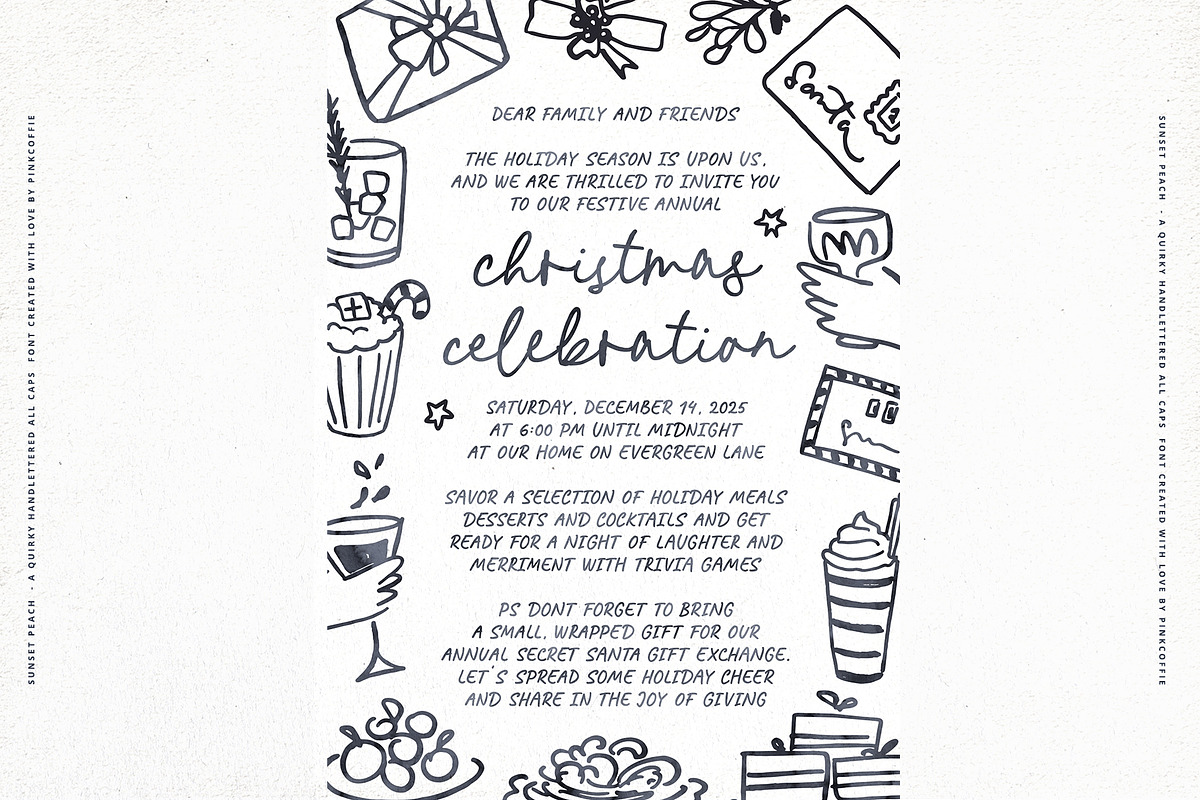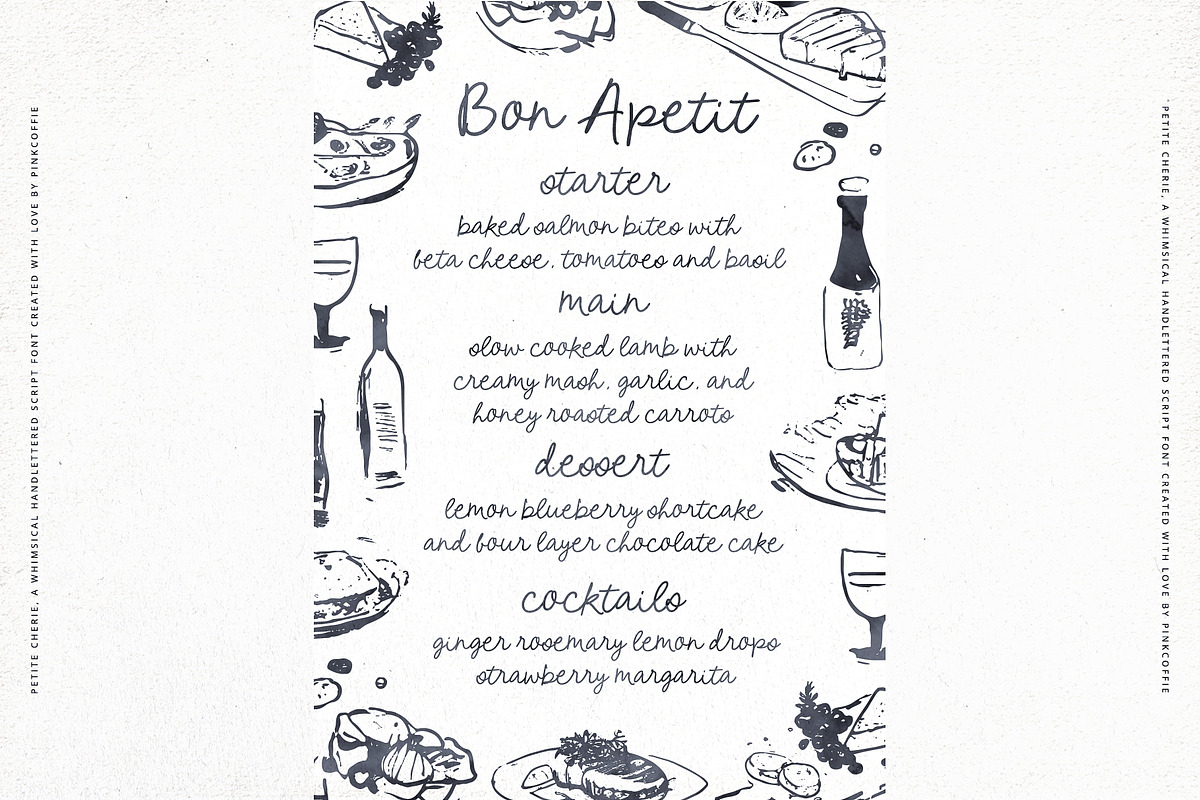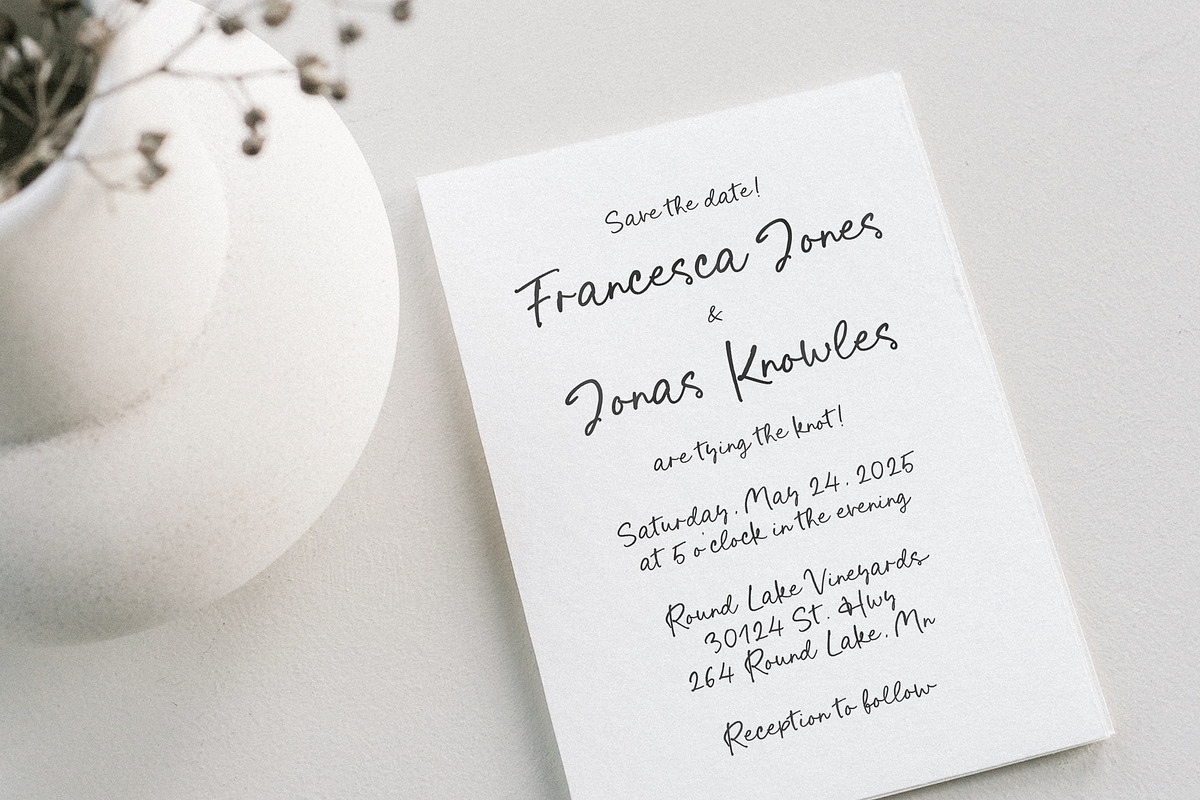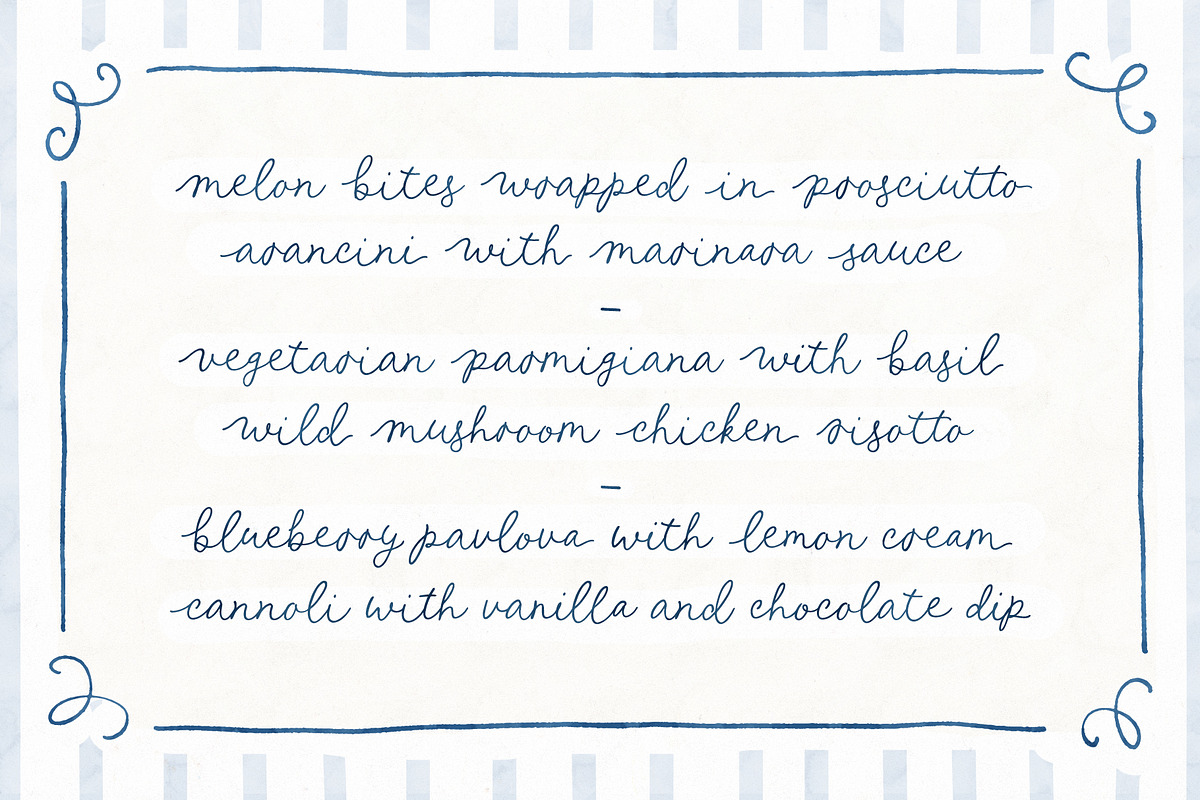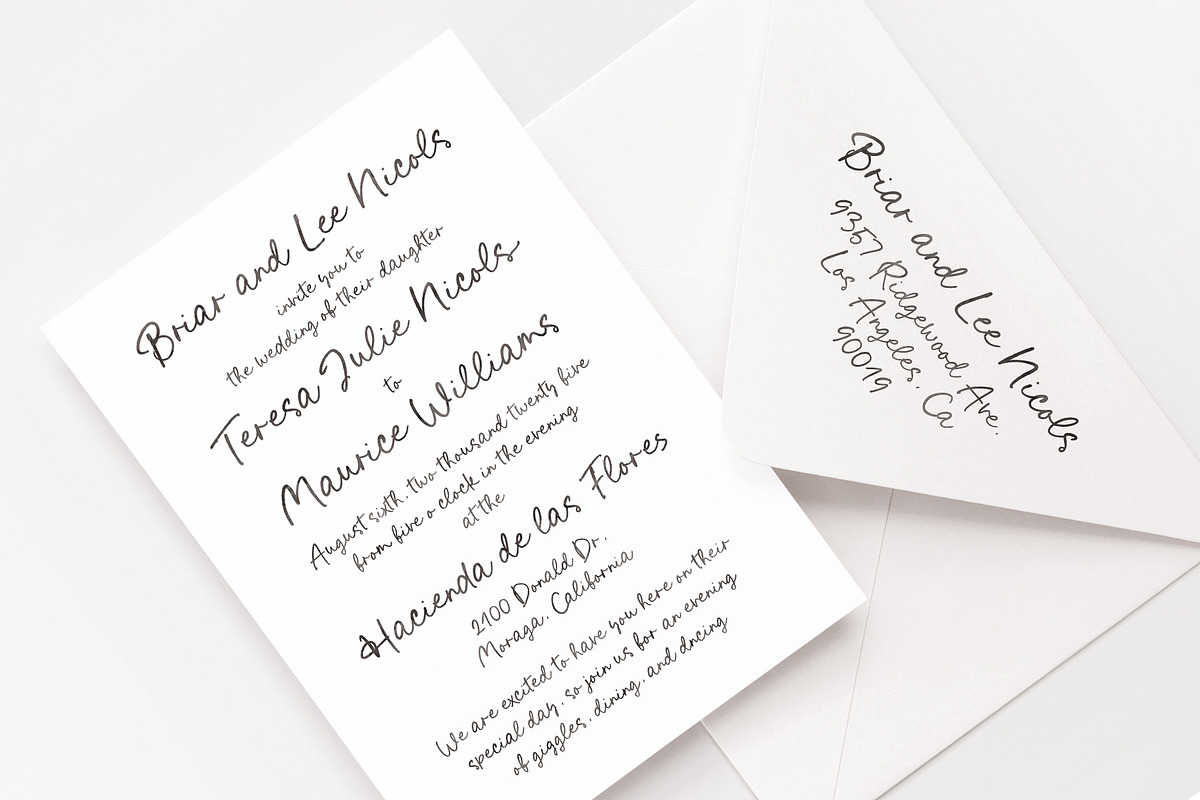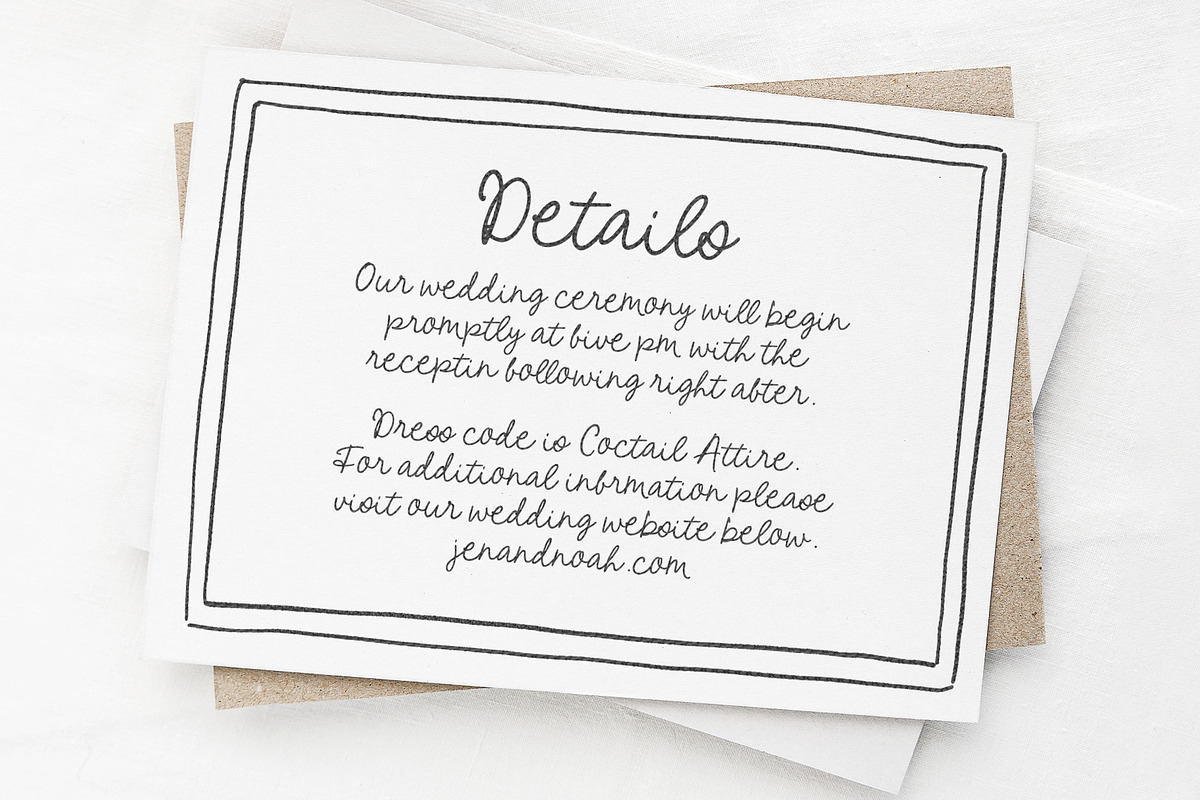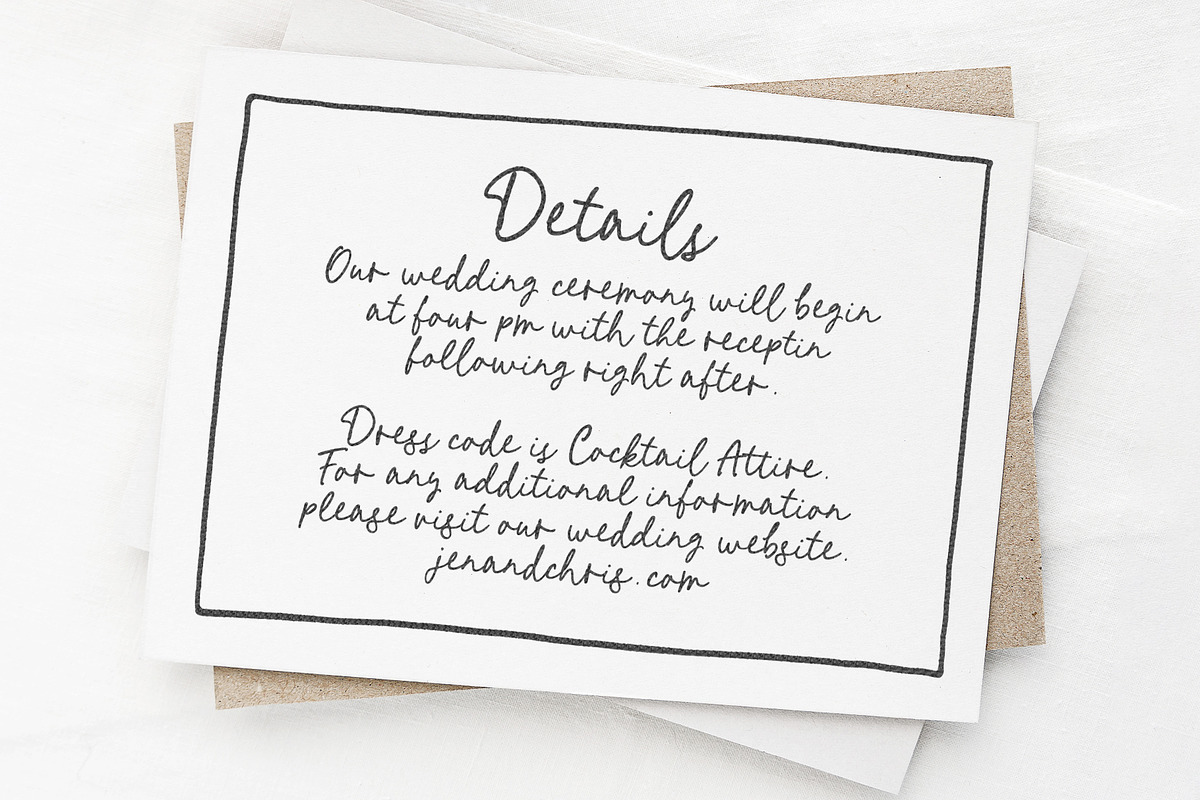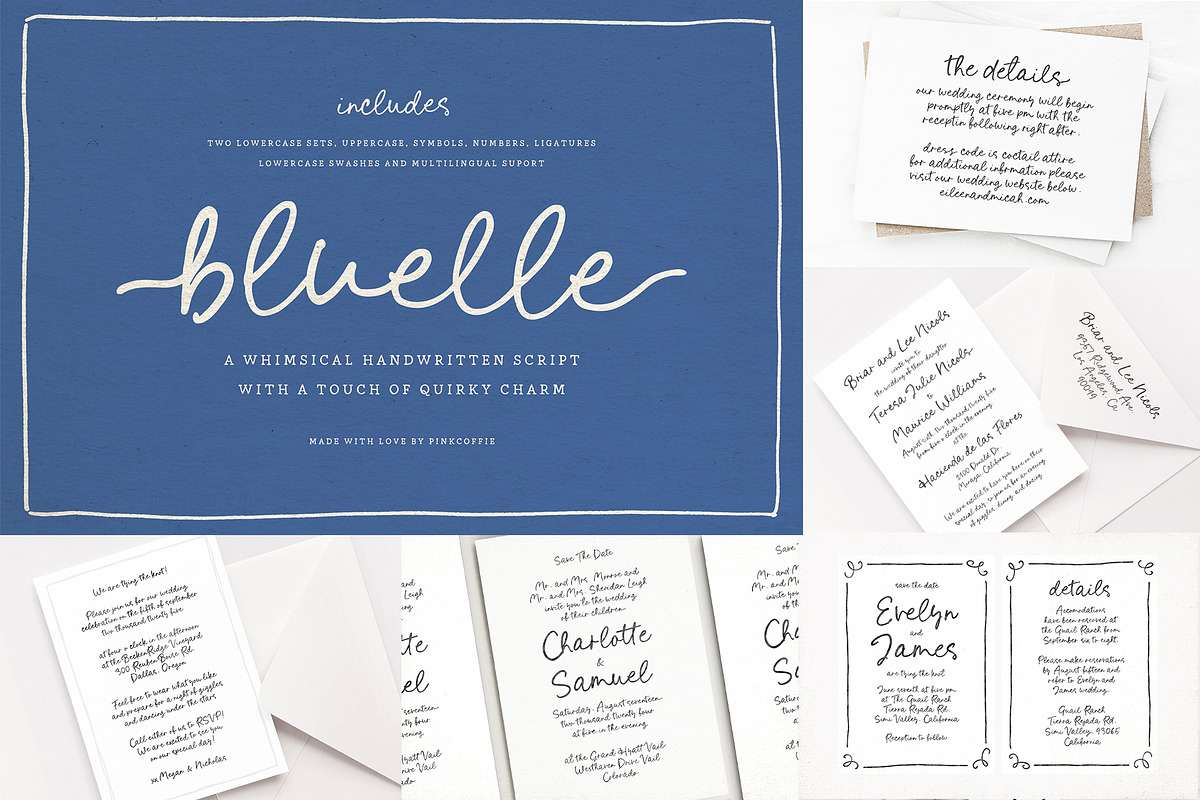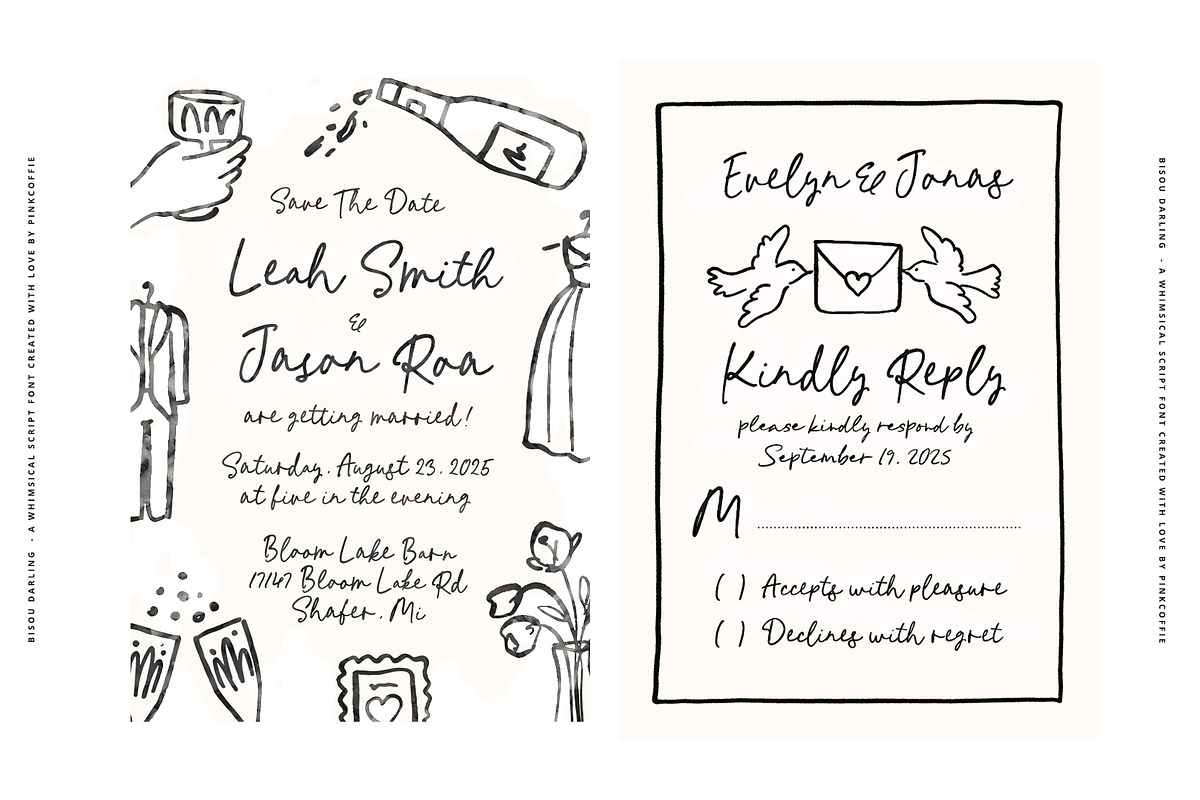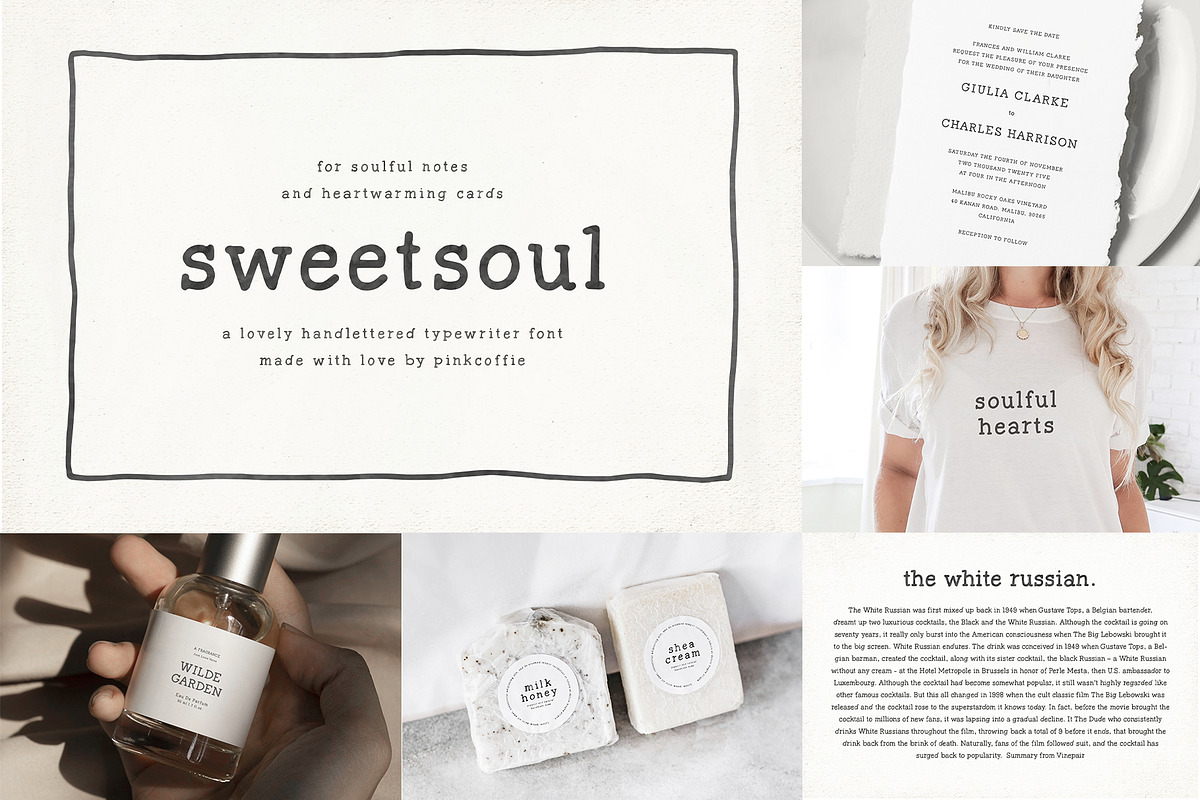
11 Whimsical Handwritten Font Bundle
The Whimsical Handwritten Font Bundle collection includes a total of 11 fonts - 8 whimsical wedding script fonts, a hand-drawn typewriter serif, and two quirky all caps sans fonts - all lovingly handmade to add charm, character and whimsy vibes to your designs. xx
Whether you are designing for wedding stationery, branding, greeting cards, or social media, this font bundle is a perfect addition to any collection that needs a sprinkle of playful handwritten charm. :)